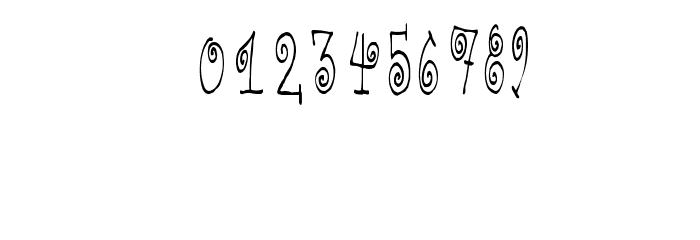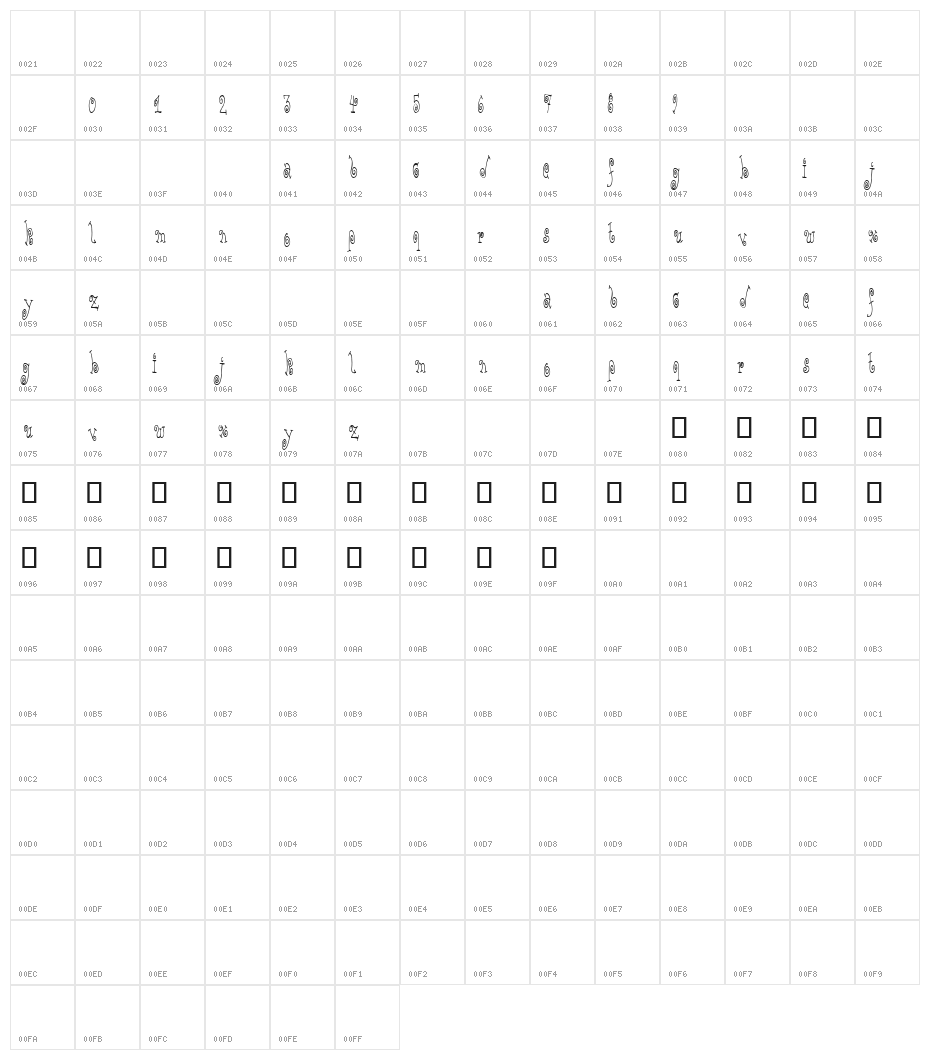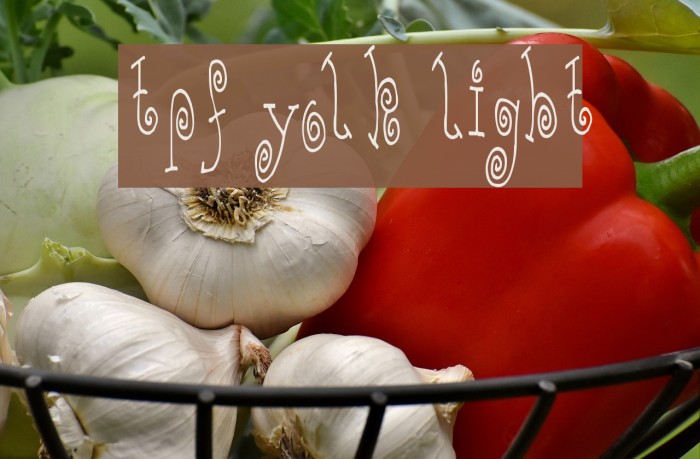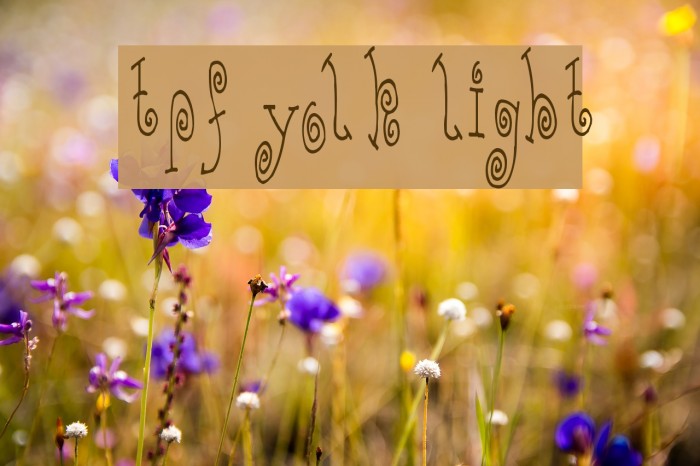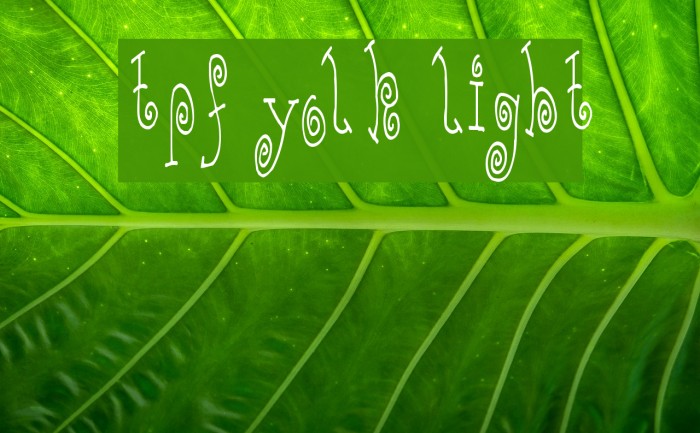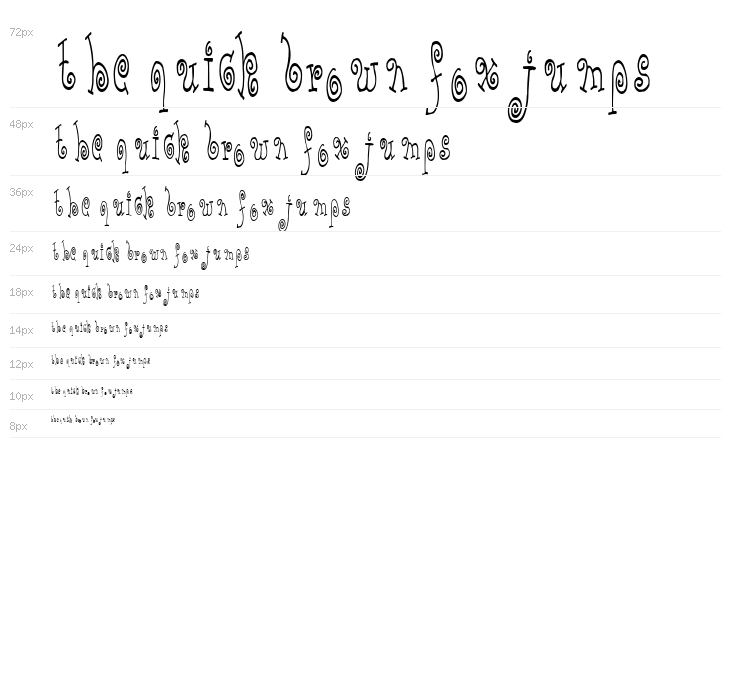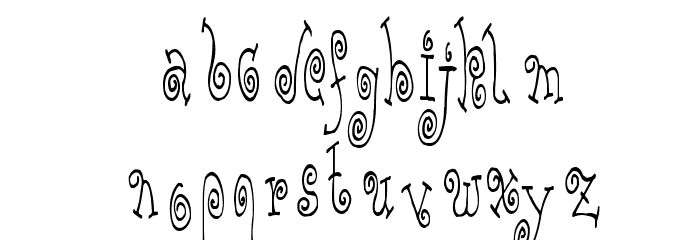
TPF Yolk Light Font
TPF Yolk Light Description
This whimsical and playful font features a unique, curly design that adds a sense of fun and creativity to any project. The characters are adorned with spiral-like embellishments, giving them a lively and dynamic appearance. The font maintains a consistent line weight, providing a balanced look despite its decorative nature. It is particularly suited for projects that aim to convey a sense of joy and imagination, such as children's books, playful branding, or creative event invitations. The numbers and special characters are equally stylized, ensuring a cohesive look across all text elements.
Proposed ProjectsIdeal for children's books, playful branding, creative invitations, and whimsical designs.